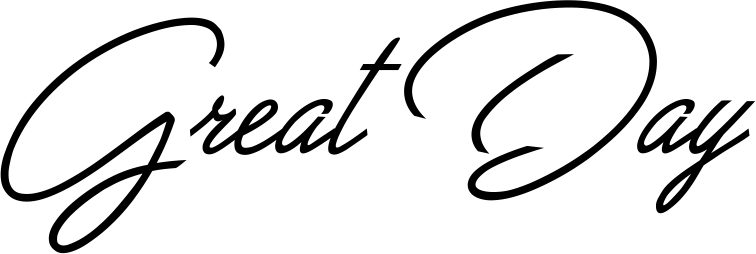
Great Day Font
Calligraphy fonts also give you that natural and creative feel, by adding beauty to your text. This Great Day font has a swash effect to it, making all the caps and regular letters provided, look close to a handwritten signature.
It’s not difficult to read, if it’s the style you’re looking for or a script feel then you got all of that in one font. Your books, flyers, titles, packaging, or brands will stand out as the Great Day font is marvelous.